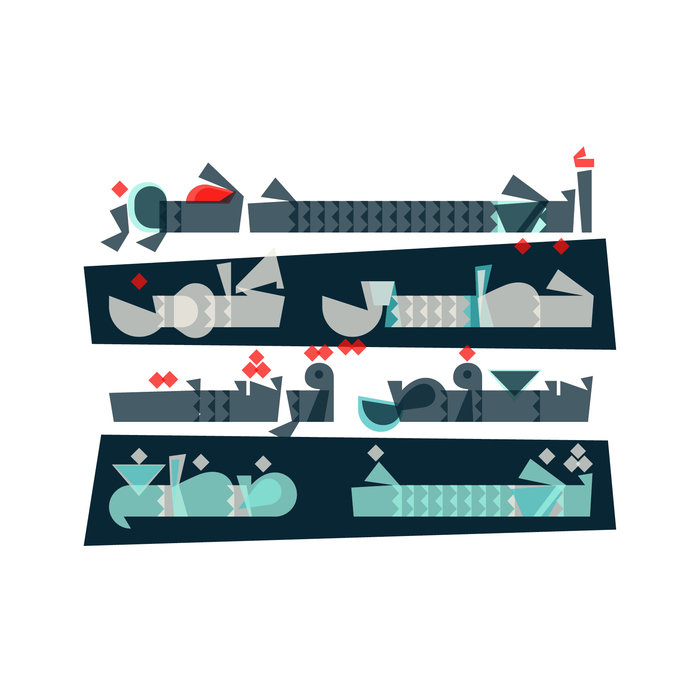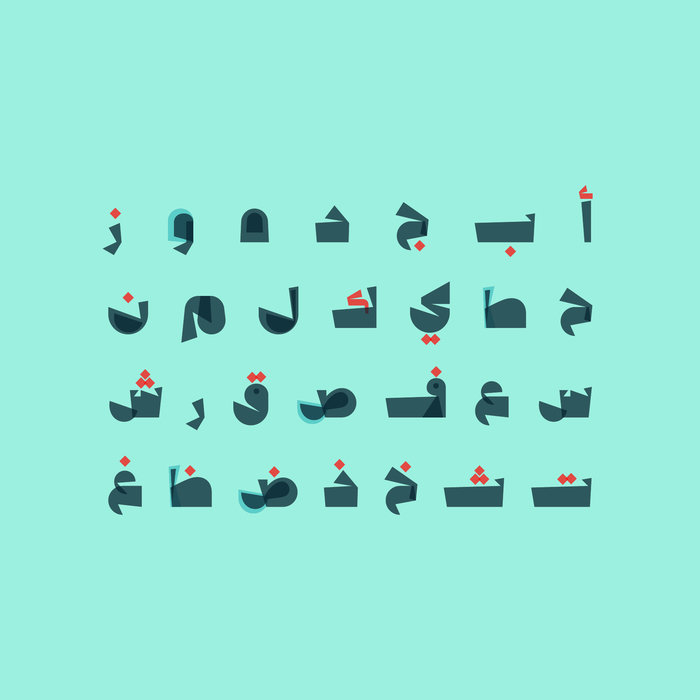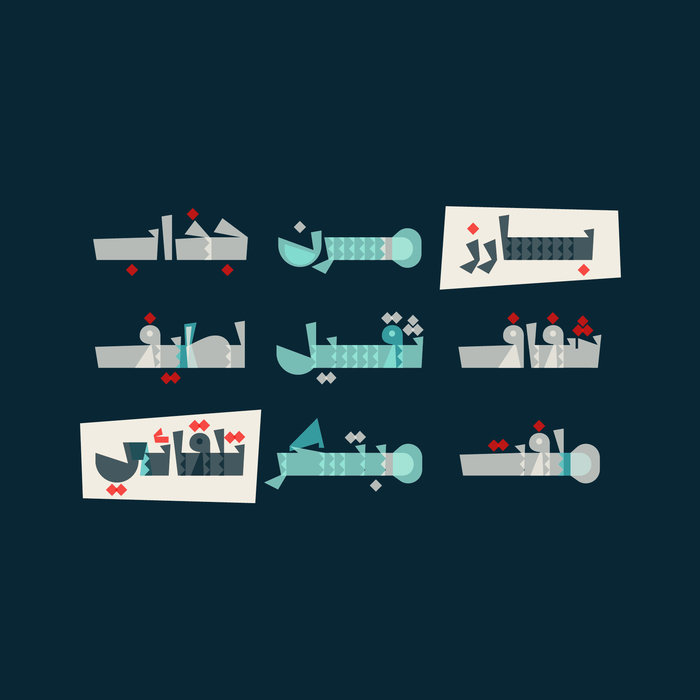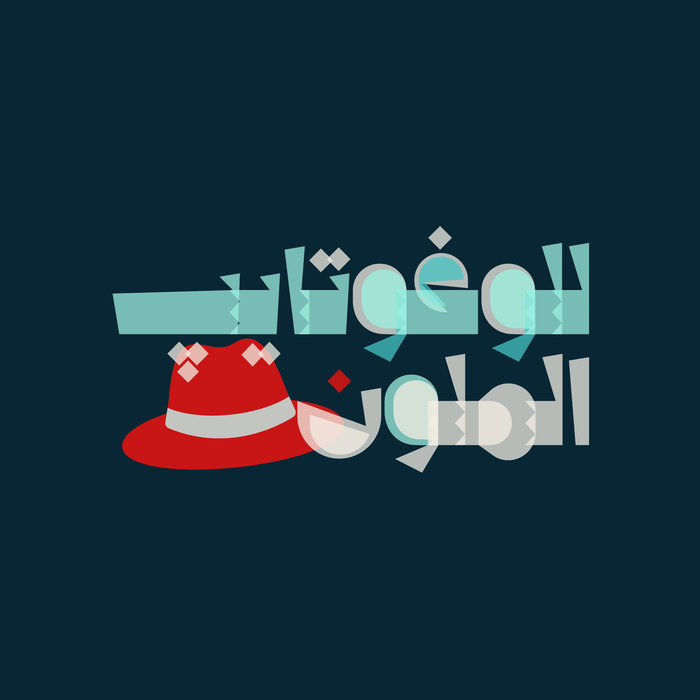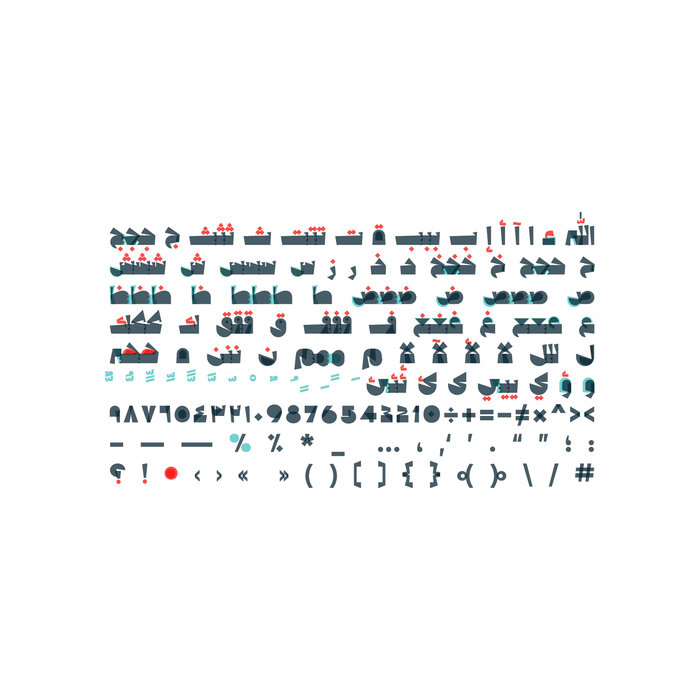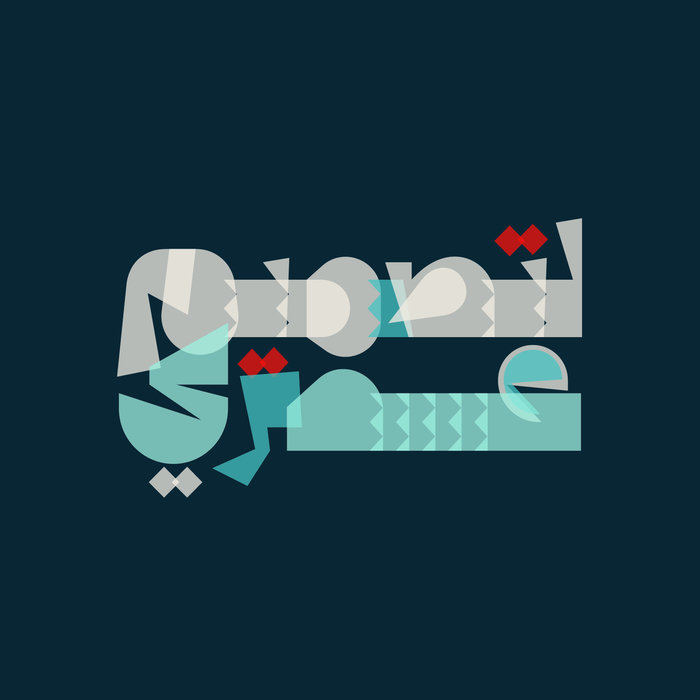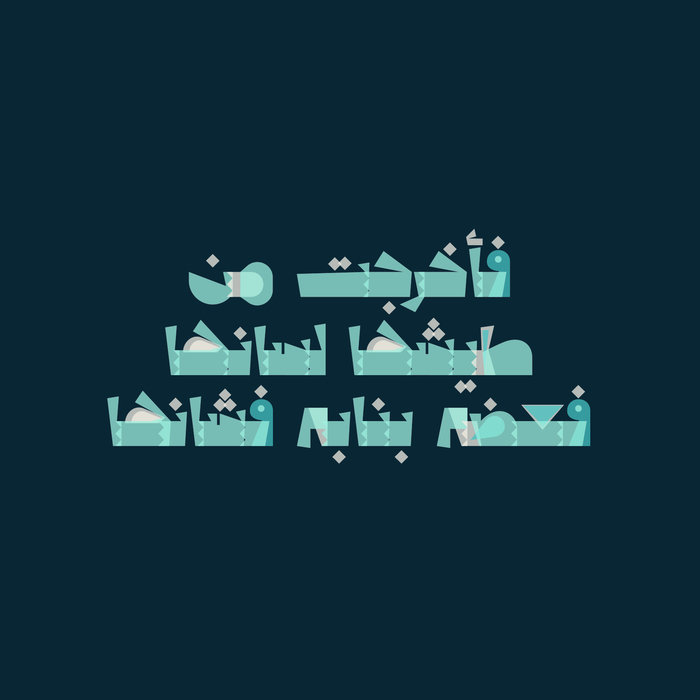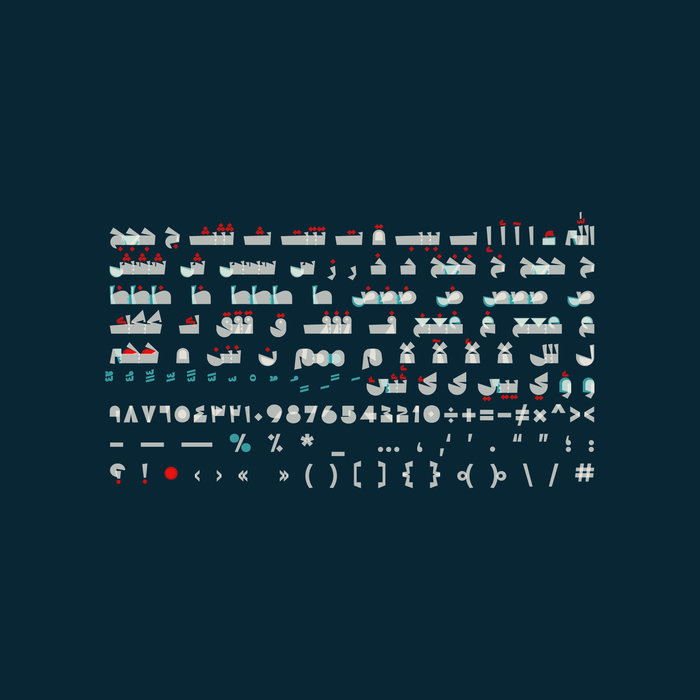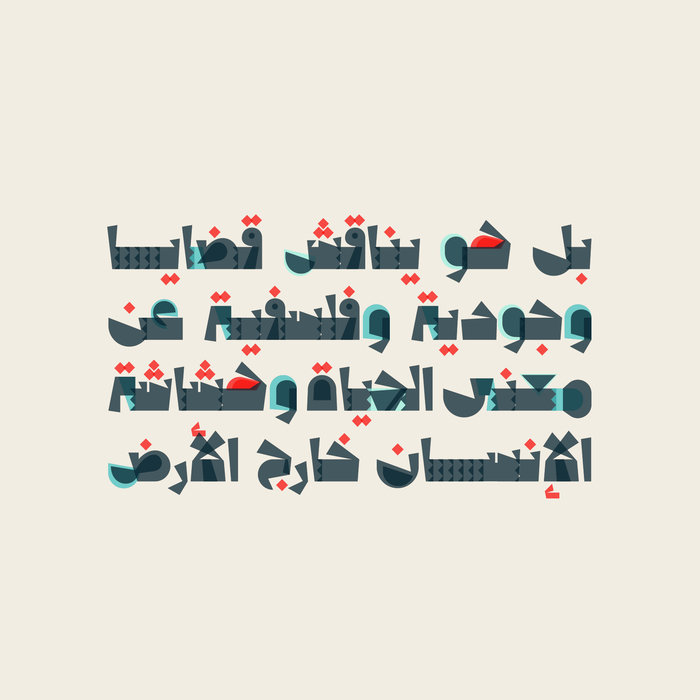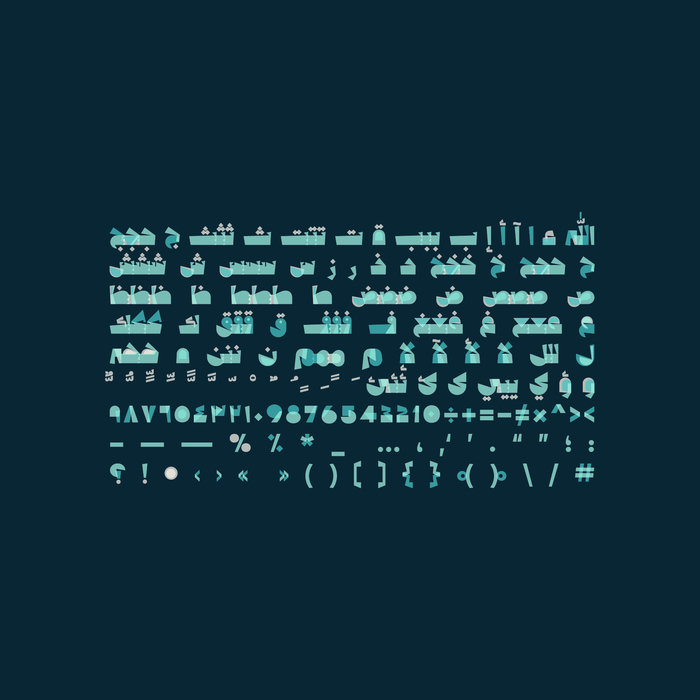
Mawjah - Arabic Colour Font
Mawjah (the Arabic for 'Wave') is an Arabic colour font that features simplified geometric shapes which overlap to generate semi-transparent characters. Mawjah is an SVG-OpenType font that comes in two vector formats (SVG-TTF and COLR-TTF*) in addition to a raster format (SBIX). The font family include two styles with Three shades (Light, Dark and Middle tone) and it suits web, print and mobile applications.